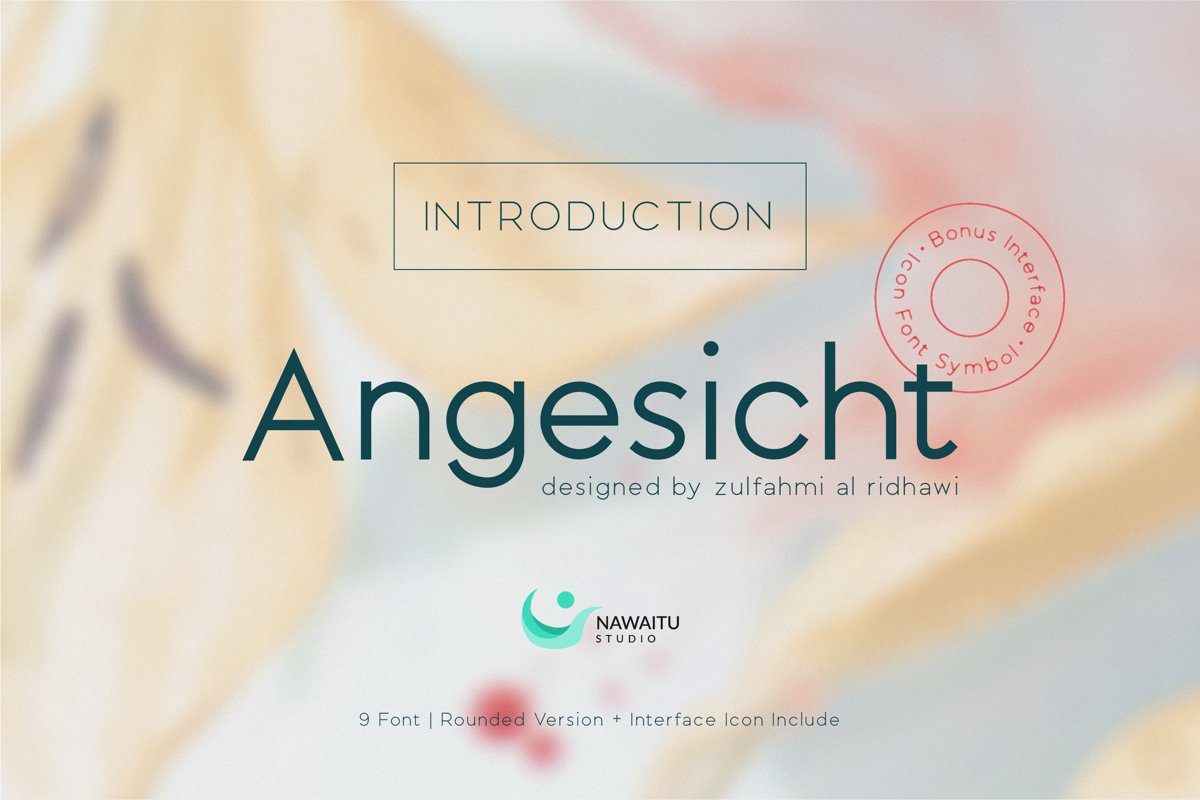
Angesicht | Modern Sans Serif
Introducing Angesicht, a strong, modern sans serif font family.
it's sturdy uncompromising style is felt through the controlled
letterforms and modern touches. Each font in the family can
stand on its own, dynamic and authoritative in their own right.
The typeface is versatile and can be successfully used in Websites,
Mobile Application, Magazines, Posters, Branding etc.
4 Weights + Rounded Version
Expanded language support
153 Glyphs Set
Bonus 52 Interface Icon Font